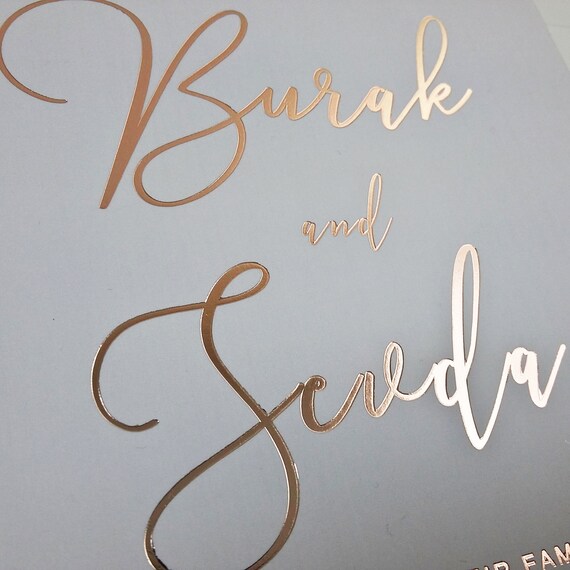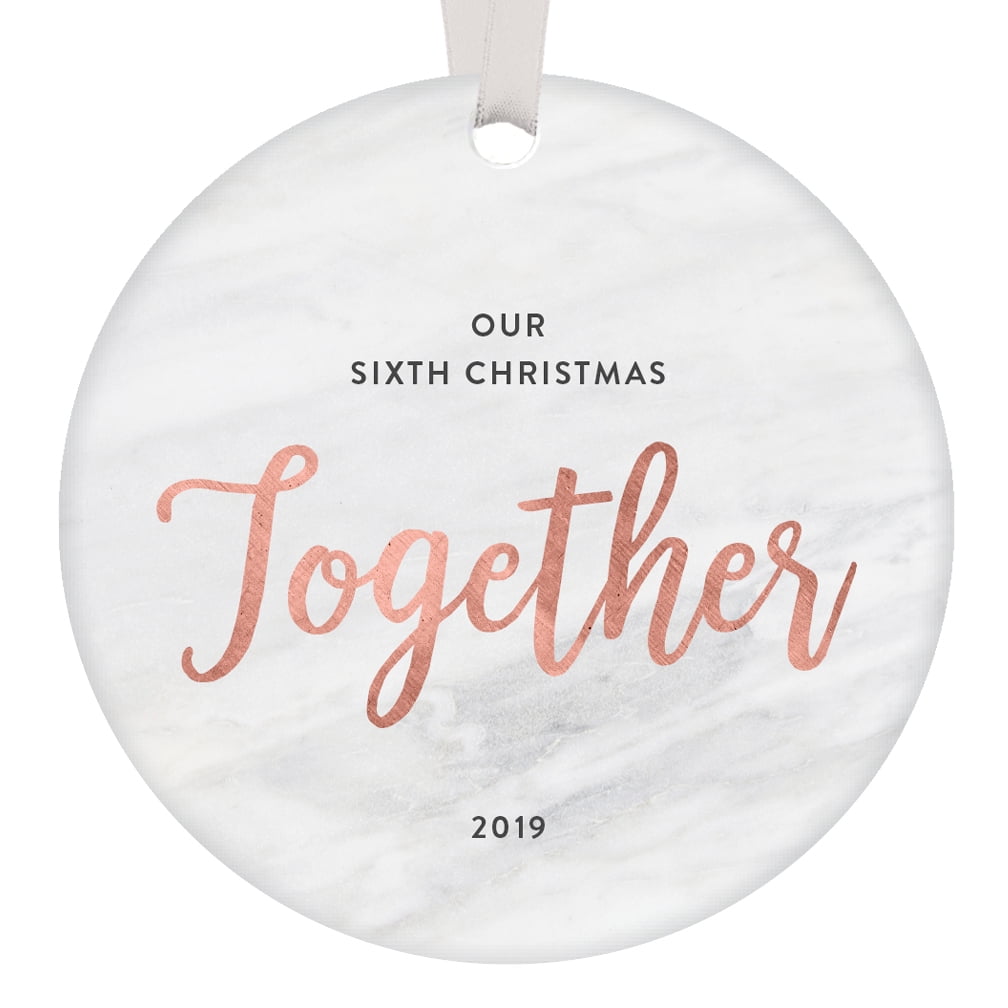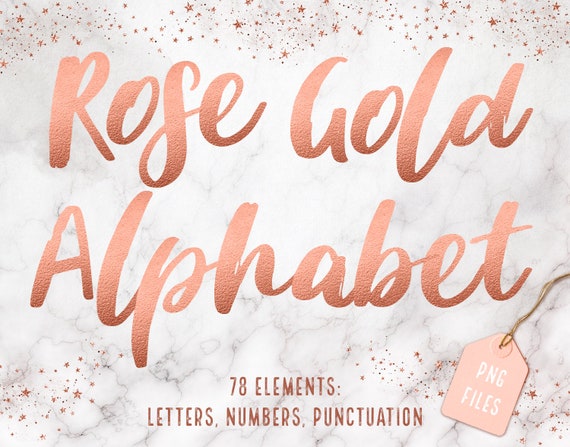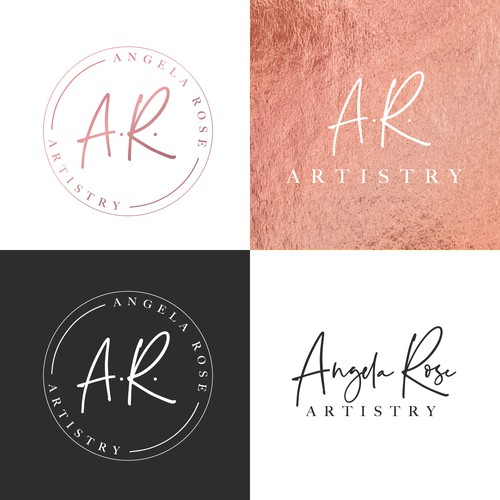
Calligraphy rose gold font. Looking for Gold fonts. Every font is free to download. Comes with upper and lowercase characters punctuation numerals and supports international languages.
Calligraphy fonts resemble elegant handwriting. Rose Gold is a whimsical script font with a relaxed theme featuring a lovely style. Free Calligraphy Fonts Lettering Tutorial Logo Fonts Rose Gold Logo Lettering Styles Graphic Design Tips Typography Fonts Feminine Fonts.
Every letter was carefully crafted and connections are smooth. Locate your Auriel Gold Foil texture on iCloud or Dropbox and tap to import. RoseGold is elegant serif font with 7 alternative glyphs for each character.
Calligraphy is an ancient writing technique using flat edged pens to create artistic lettering using thick and thin lines depending on the direction of the stroke. Sep 25 2017 - Free calligraphy fonts to download for personal use. You can either create some lettering on a new layer or copy and paste an existing design into your file.
Rose Gold is a fun trendy and relaxed handwritten font. Also try the characters and some standard ligatures alternates. Love Rose - Modern Loveable Script Font by Sans and Sons.
Rose Gold FOIL Calligraphy Font ALPHABET and NUMBERS Clipart PNG transparent files clipart. Magenta Rose Hand lettering script font with an elegant feel. Text Size New Layer.
The height of calligraphy was reached in the middle age where monks developed the narrow writing style called gothic allowing more words to fit on a single line as paper was expensive at the time. Its a very versatile font that works great in large and small sizes. The best part is that all of this can be accomplished using programs like Word and PowerPoint.
Large font sizes do not auto-update. - Multilanguange - Alternates - PUA Encoded - Ligatures - Very easy to use in any software Intructions included. Burgues Script created by Alejandro Paul is a typical font family of calligraphy style.
RoseGold is perfect for branding projects home-ware designs product packaging wedding invitations magazine headers - or simply as a stylish text overlay to any background image. Tap the Spanner icon in your toolbar and under the Image panel choose Insert a file. No matter the topic this font will be an incredibly asset to your fonts library as it has the potential to elevate any creation.
Brush script hand-lettering feminine fonts for logos branding wedding invitations stationery. Price - low to high. Gold elegant modern logo vintage script logotype fashion classic branding lettering display calligraphy wedding typography font swash poster packaging beautiful vector retro magazine luxury clean.
Browse 83 incredible Rose Gold Font vectors icons clipart graphics and backgrounds for royalty-free download from the creative contributors at Vecteezy. Calligraphy fonts are widely used in wedding event invitations original logo design religious art films TV etc. Rose gold font effects are super easy to create using the perfect rose gold color codes and some shadow and lighting effects.
Rose Gold Foil Alphabet Clipart Rose Gold Number Clip Art Foil Letters Clip-art Font Digital Instant Download Commercial Use Symbols. CAC Champagne Details and Download - American Greetings Corporation - Script or Brush. Use these cursive letter script and NUMBERS on photo overlay effects party invitations website decals holiday invitations wedding invitations Christmas cards baby shower decorations scrapbook embellishments blog design elements and MORE.
They often look as if they were drawn with flat-tipped pens or brushes. Introducing our new Love Rose Modern Calligraphy Script with Elegant Style this is perfect for branding logos invitation masterheads and more. The best selection of Royalty Free Rose Gold Fonts Vector Art Graphics and Stock Illustrations.